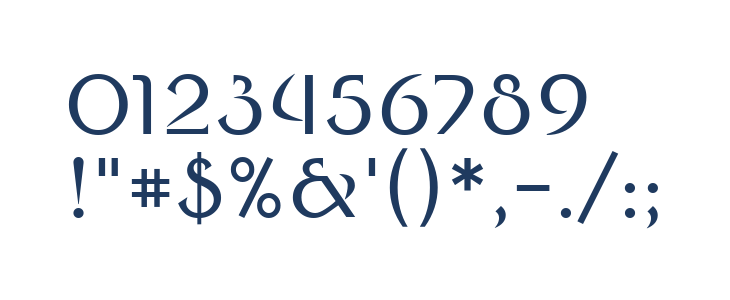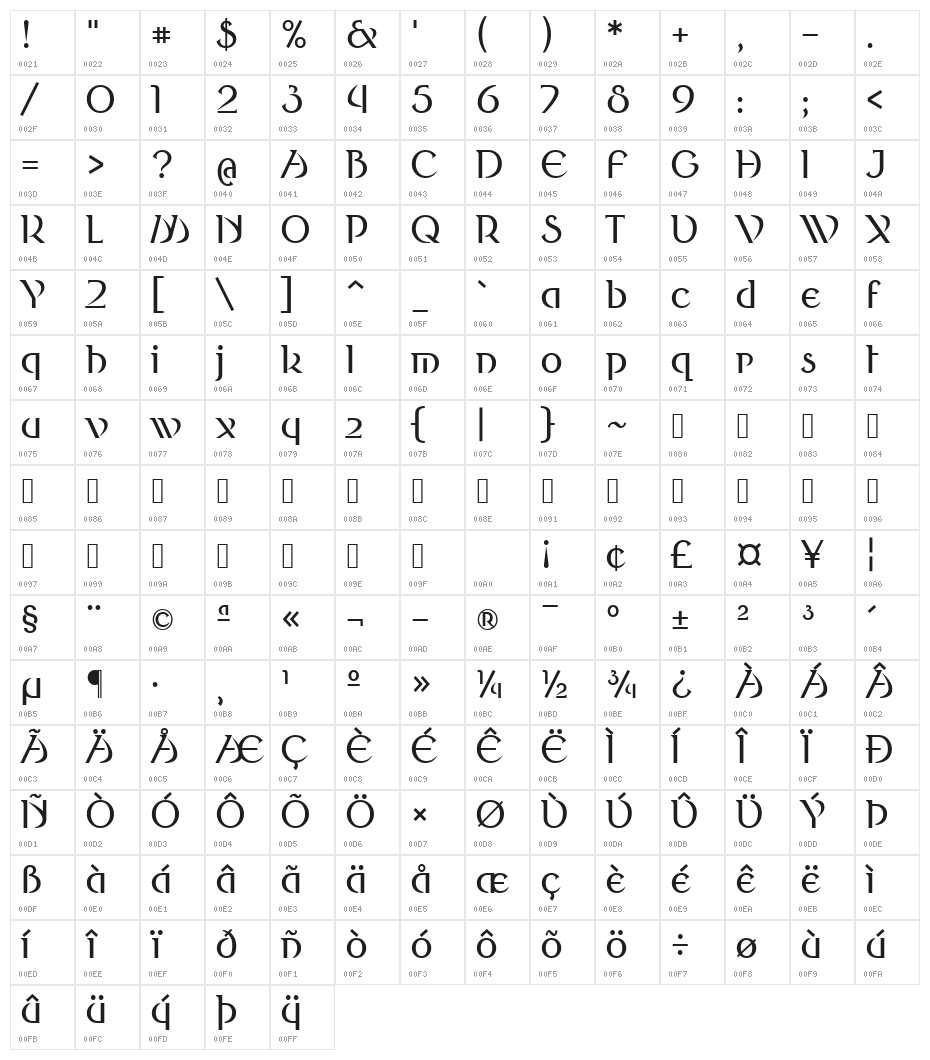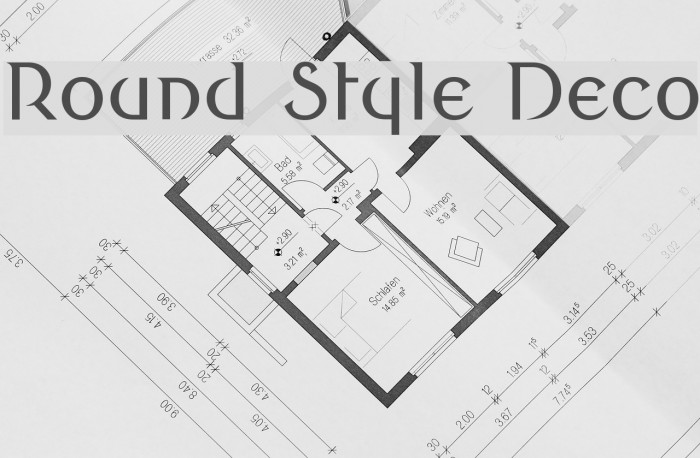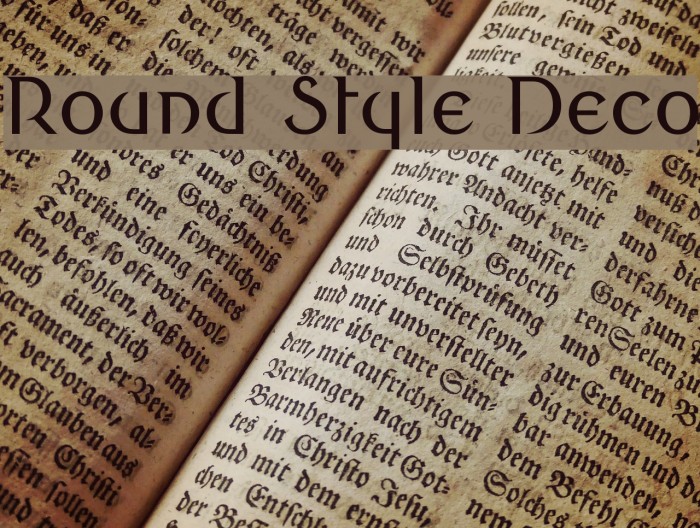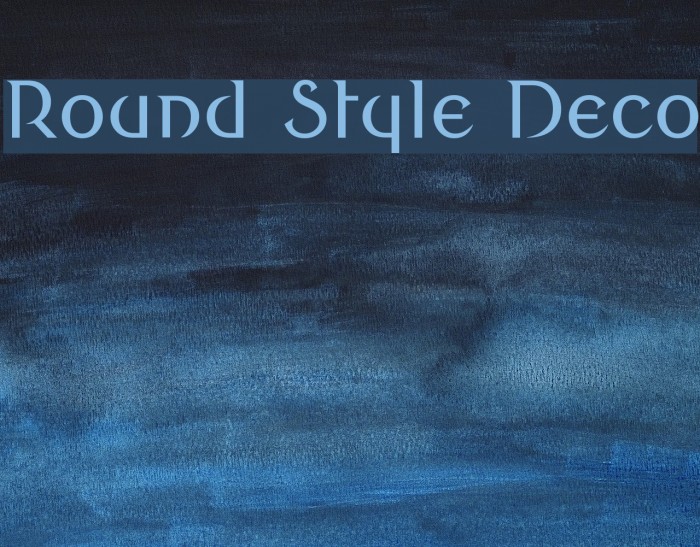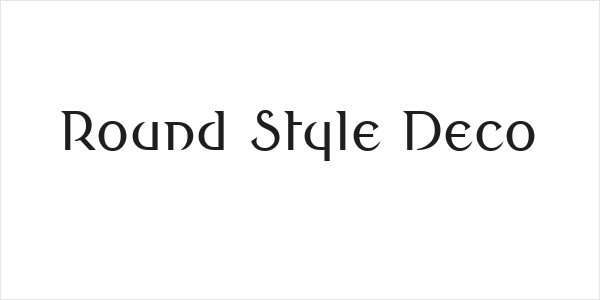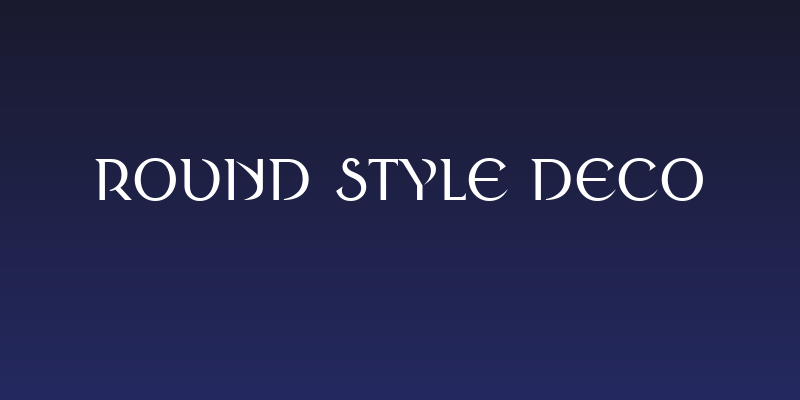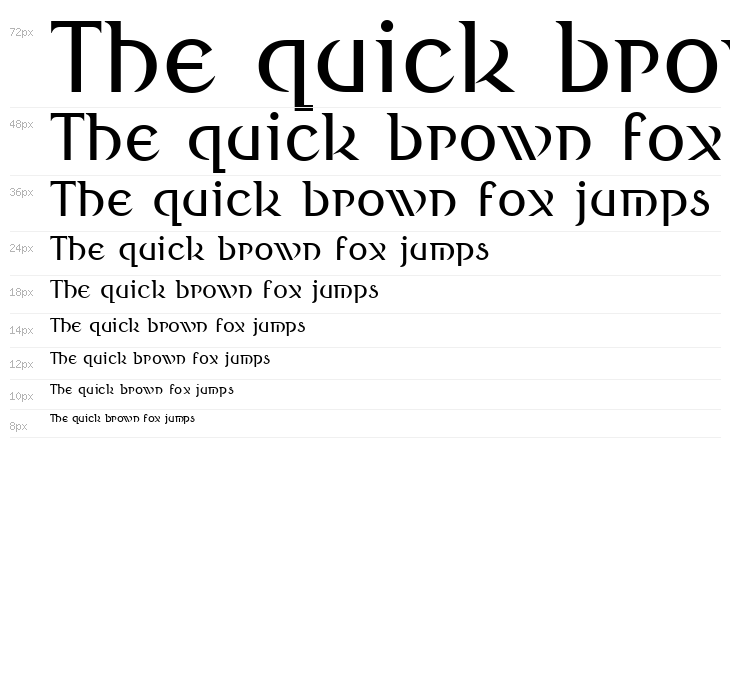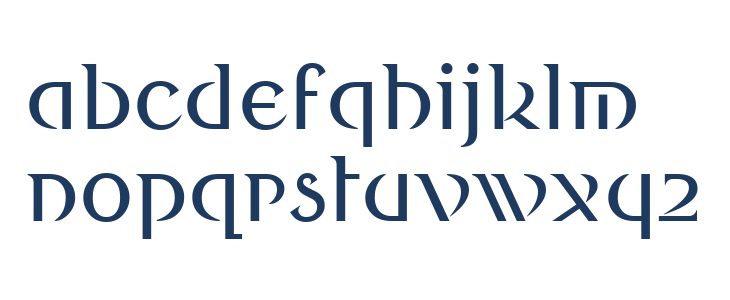
Round Style Deco Font
Round Style Deco Description
This font features a distinctive Art Deco style with geometric and rounded elements that create a sense of elegance and sophistication. The uppercase letters are bold and angular, with sharp edges and a unique flair that adds character. The lowercase letters maintain a consistent style, with smooth curves and a modern touch. The numerals are designed with a similar aesthetic, ensuring uniformity across the character set. Special characters are crafted with attention to detail, complementing the overall design. This font is ideal for projects that require a touch of vintage glamour and modern appeal.
| Overall Style | Vintage |
| Proposed Projects | Ideal for branding, posters, invitations, and editorial design projects that seek a vintage yet modern aesthetic. |